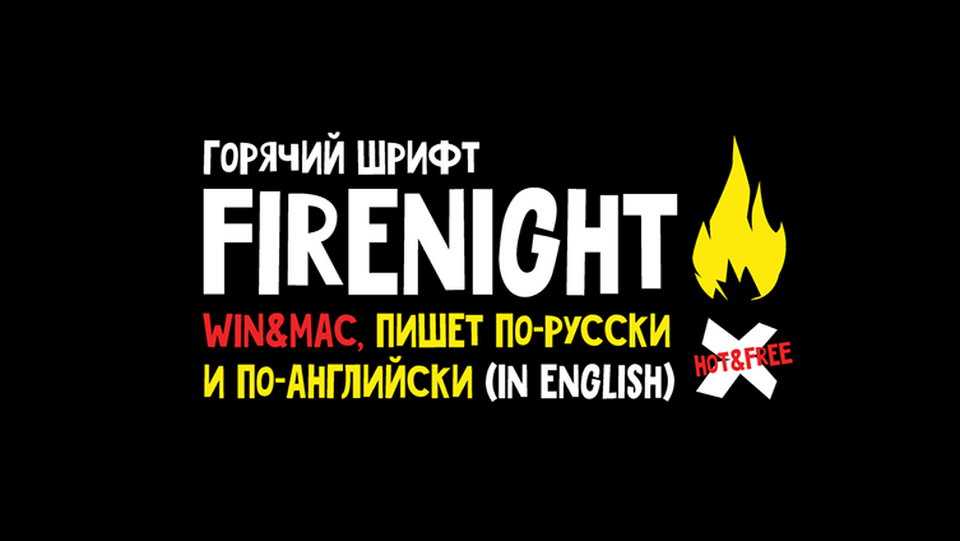
Download Firenight font, a creative display typeface, inspired by the party’s posters. It has a lot of alternates to support a “live” feel. The font also has glyphs for creating moods easily and quickly.
Designer: Alexey Pushkov